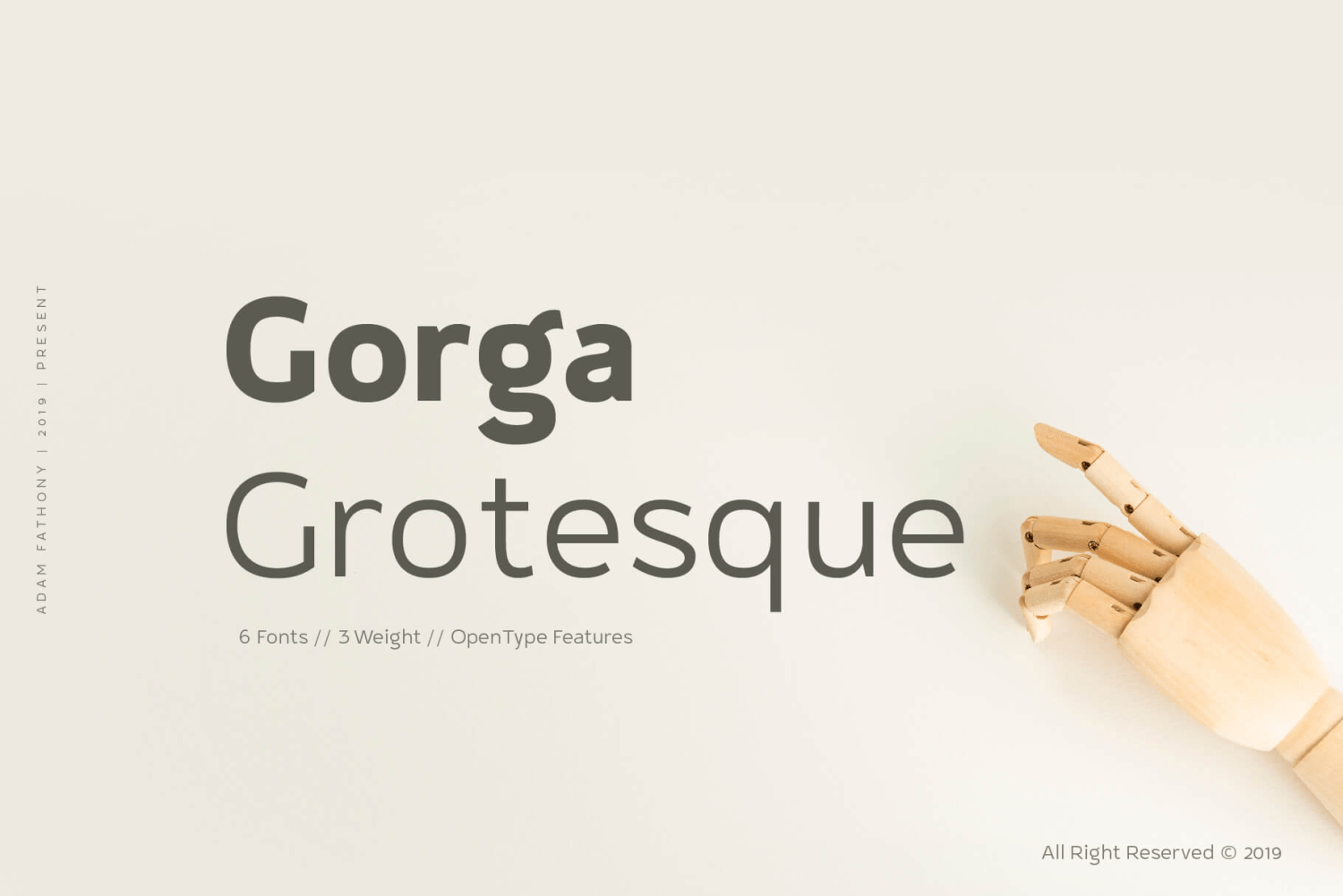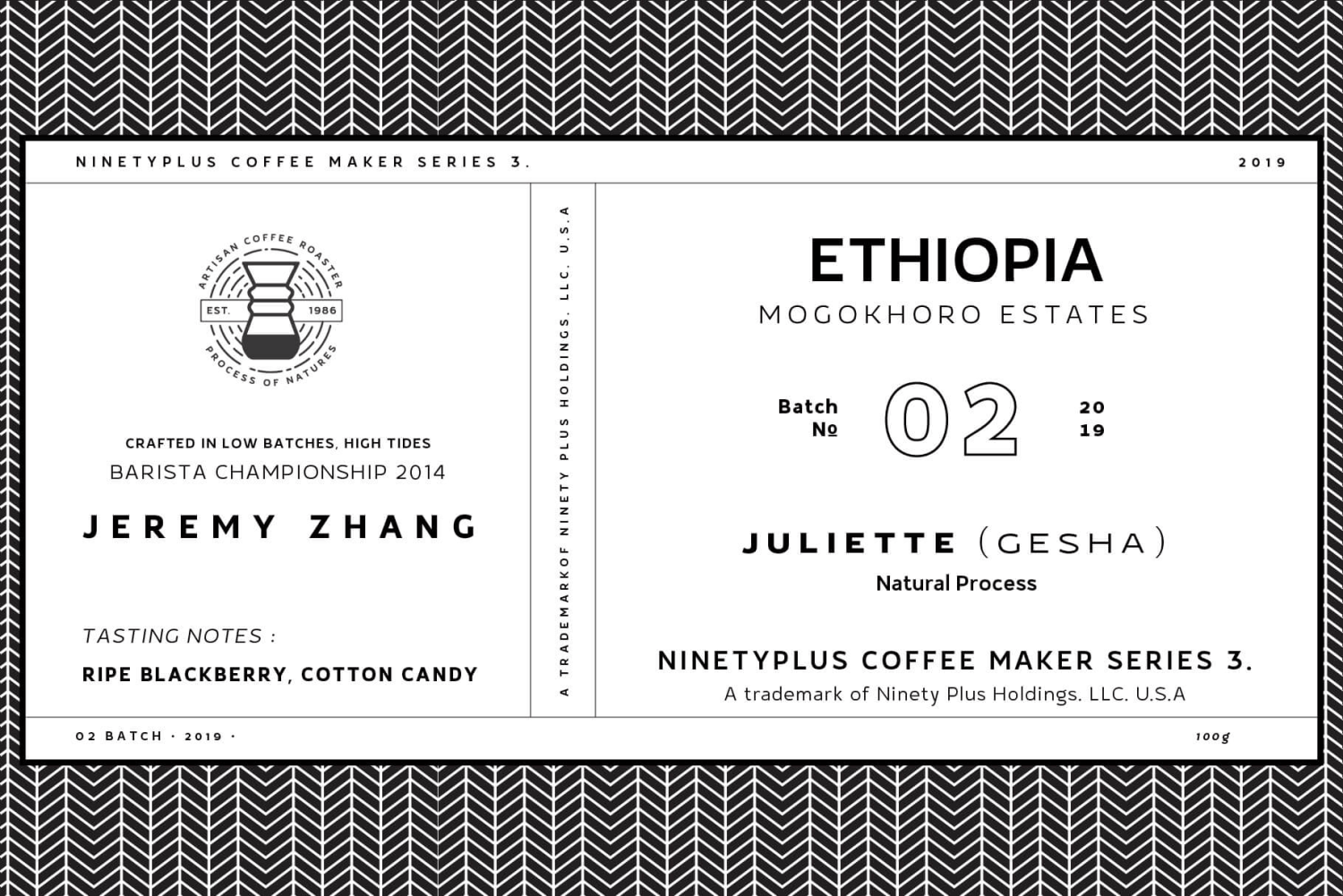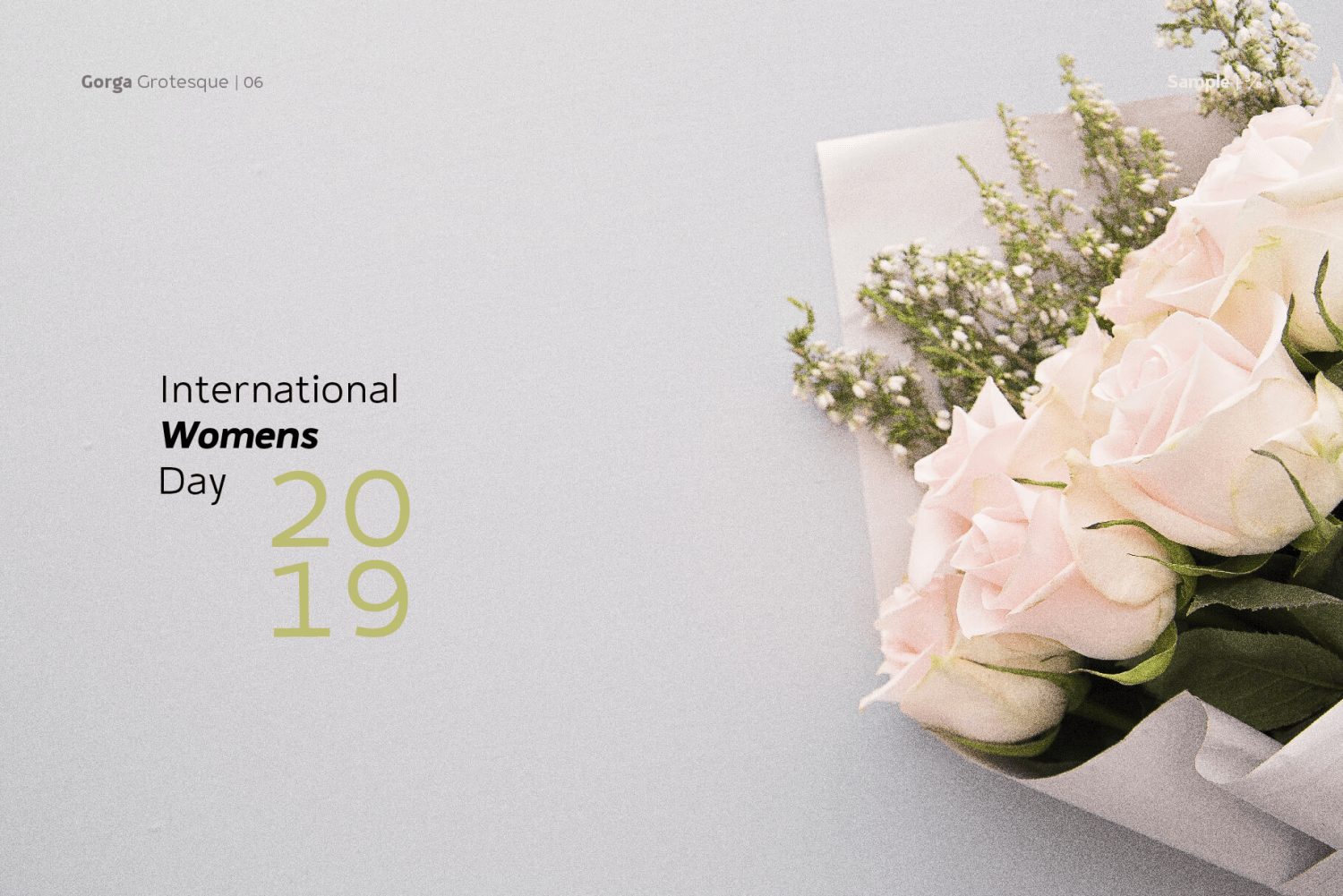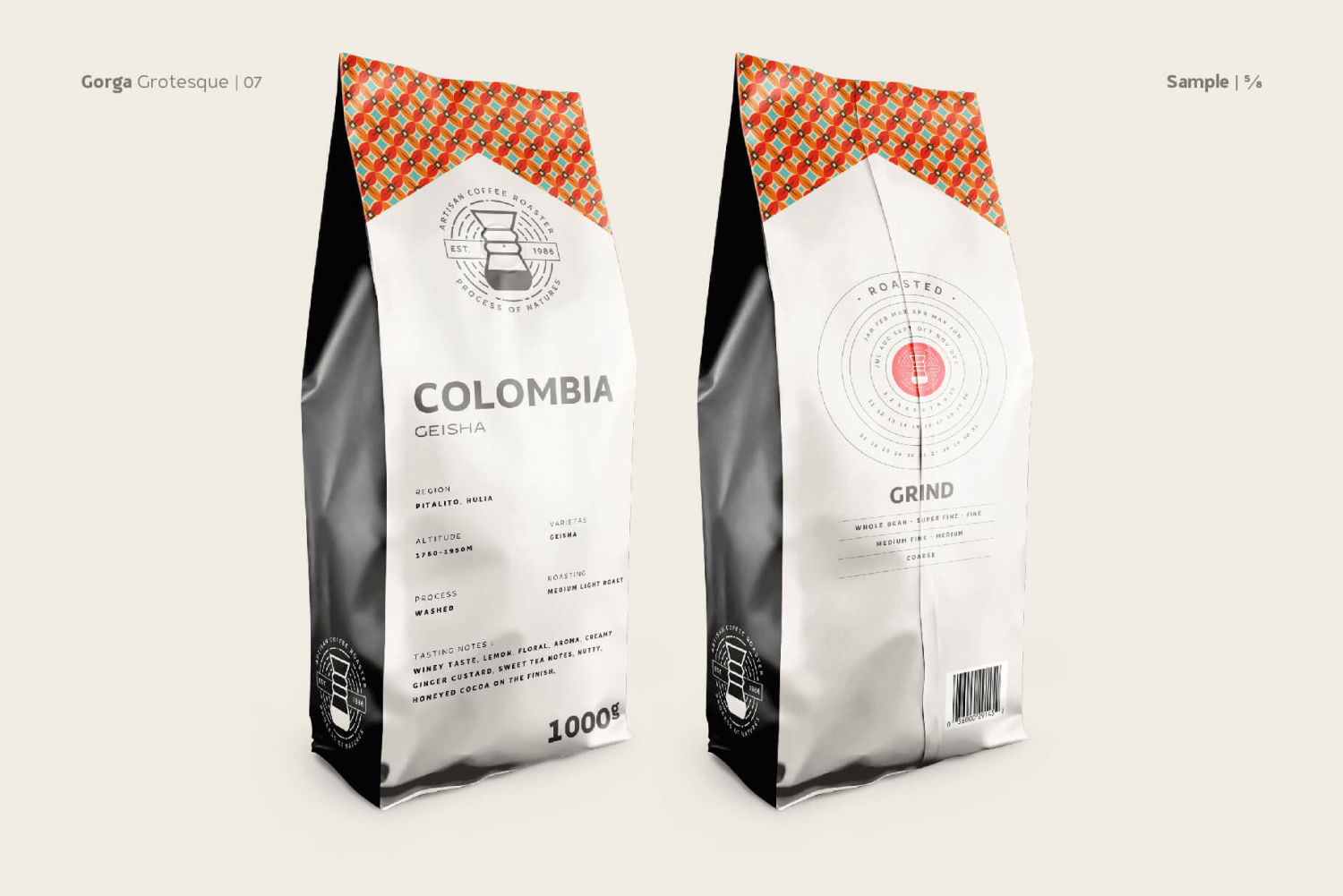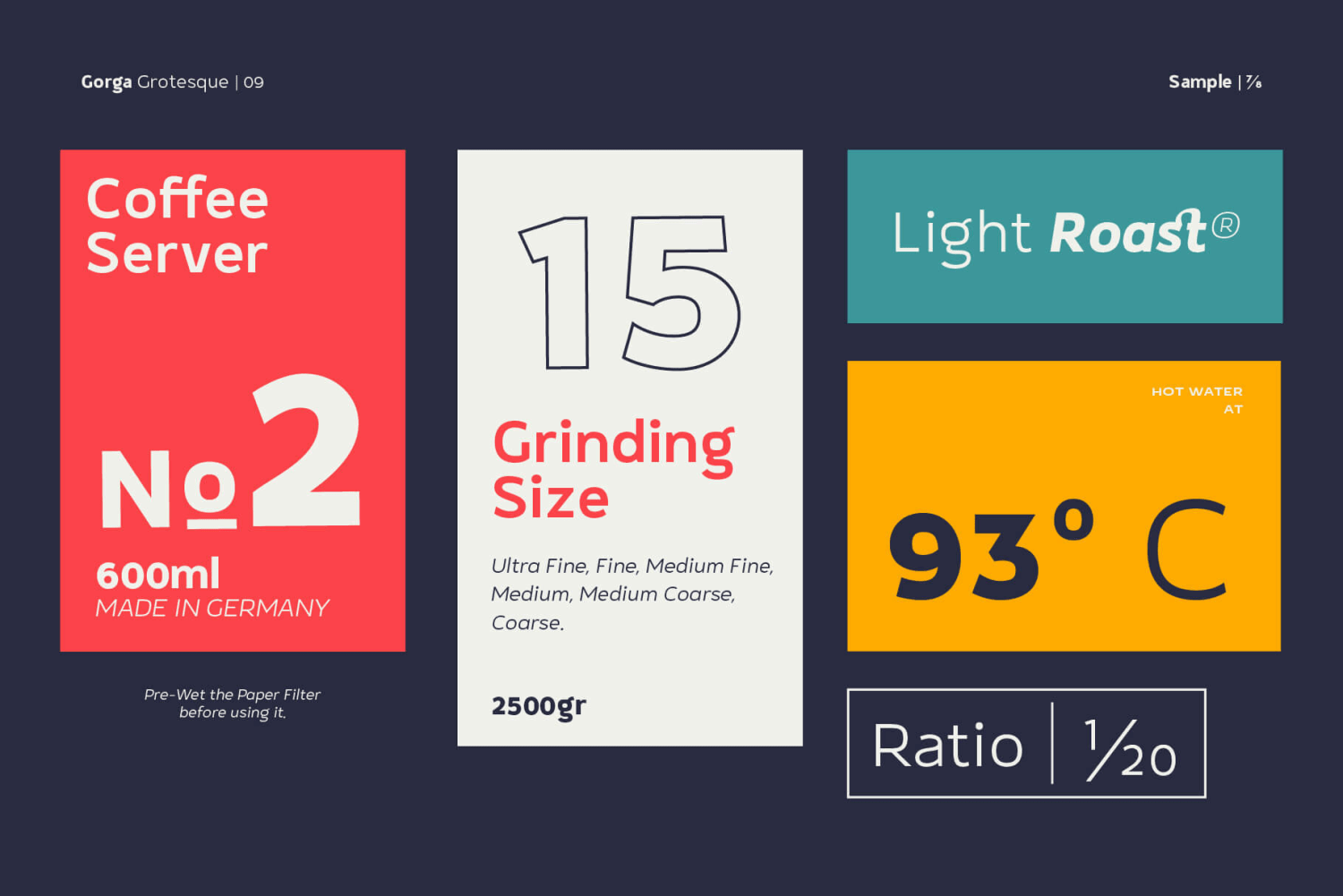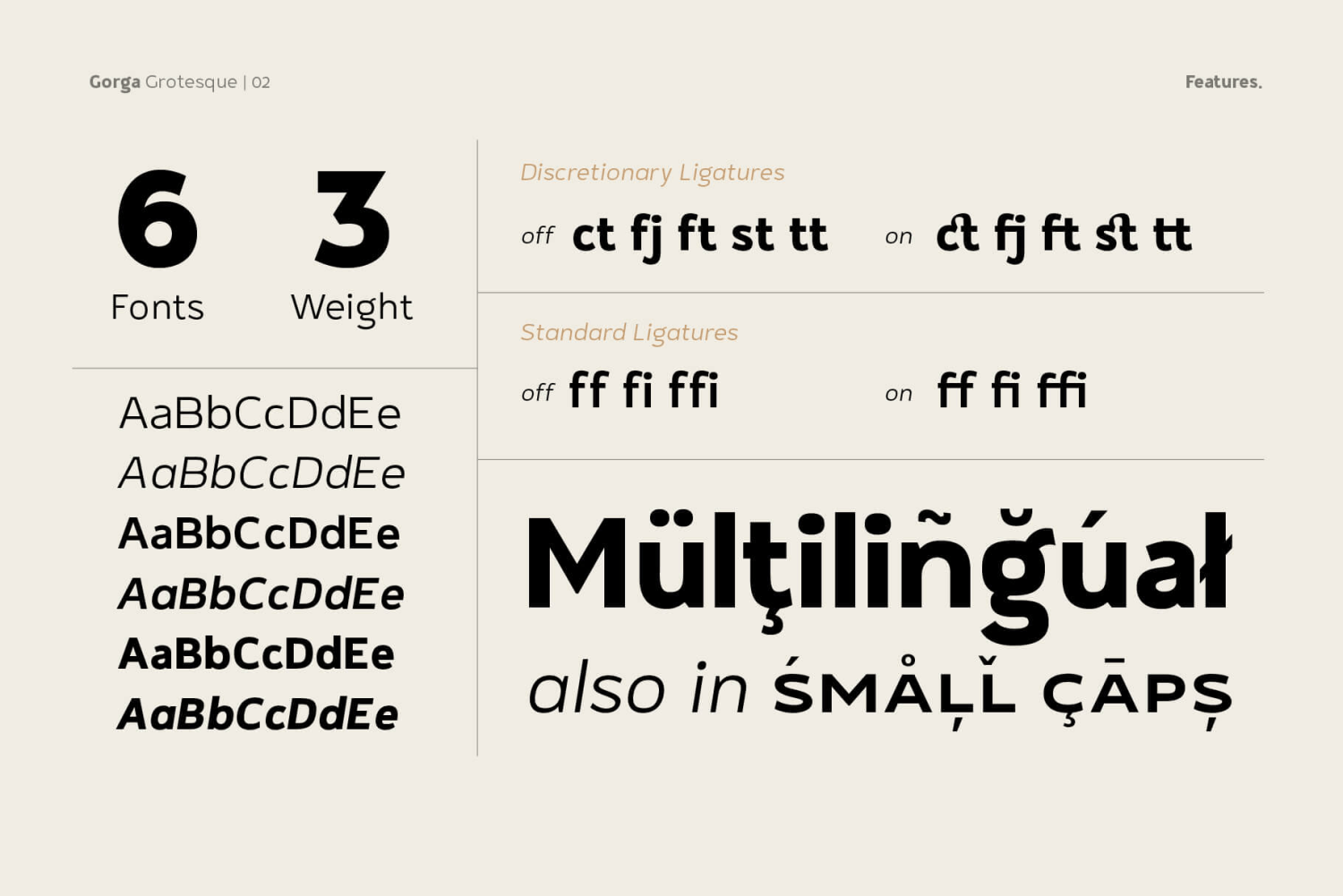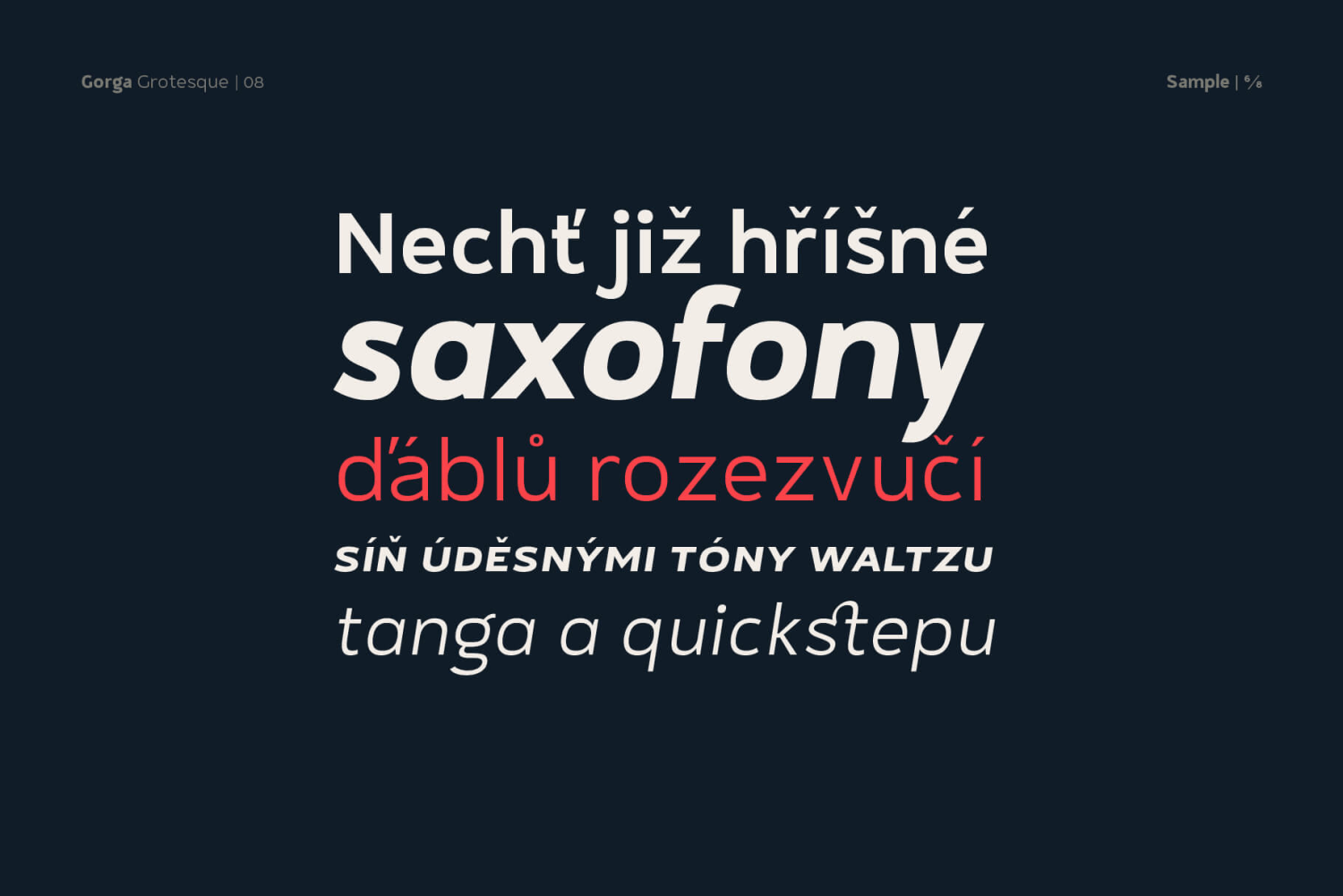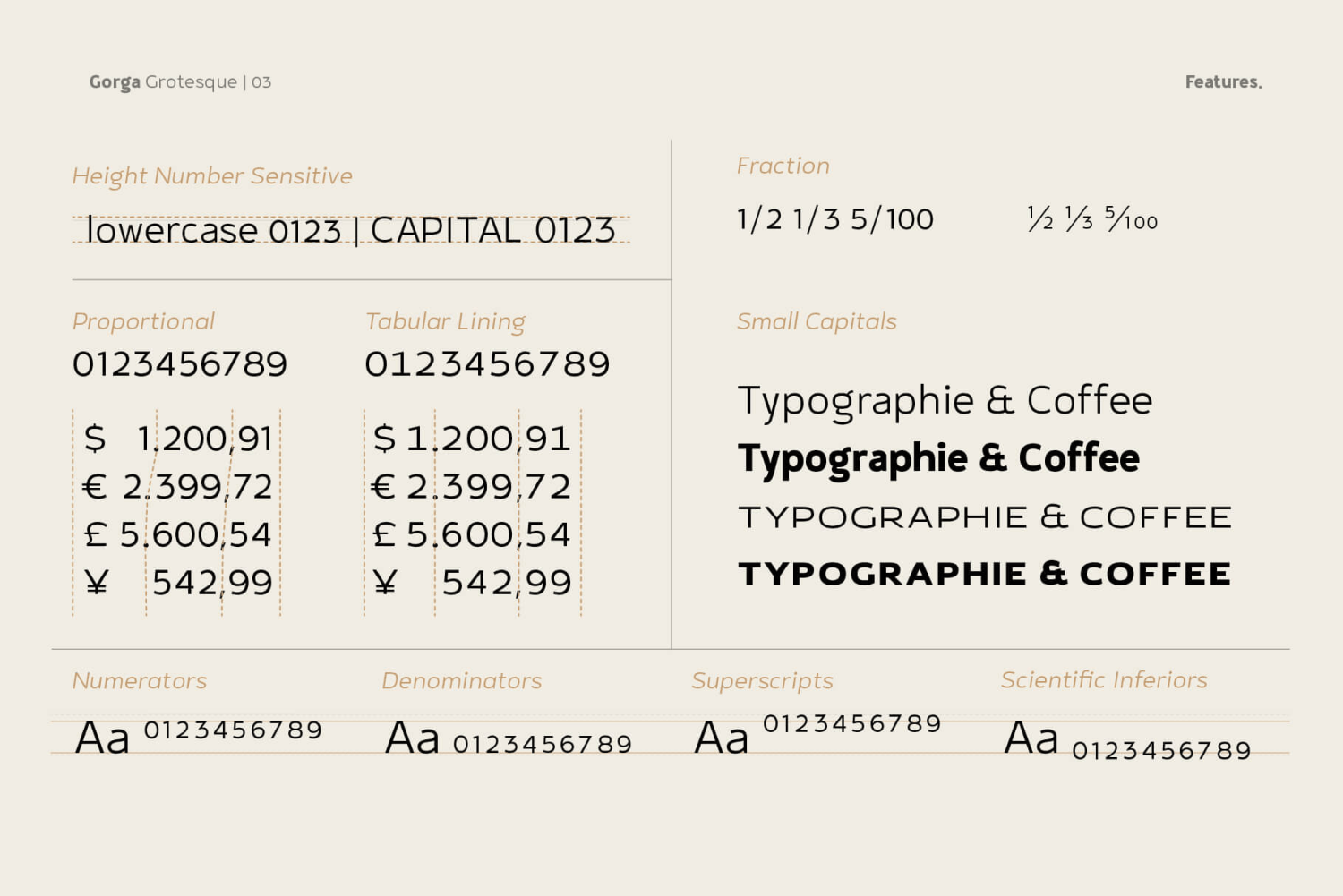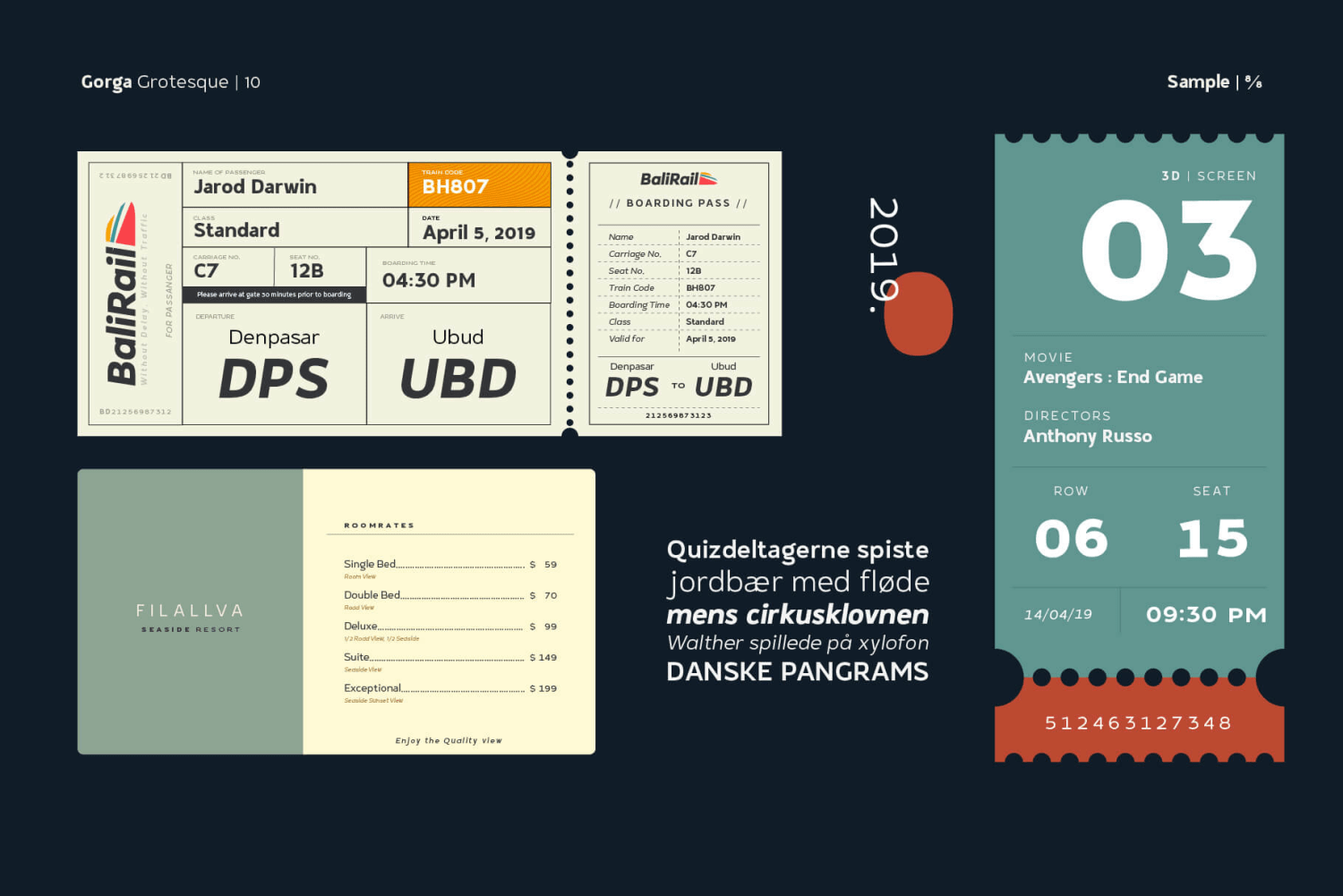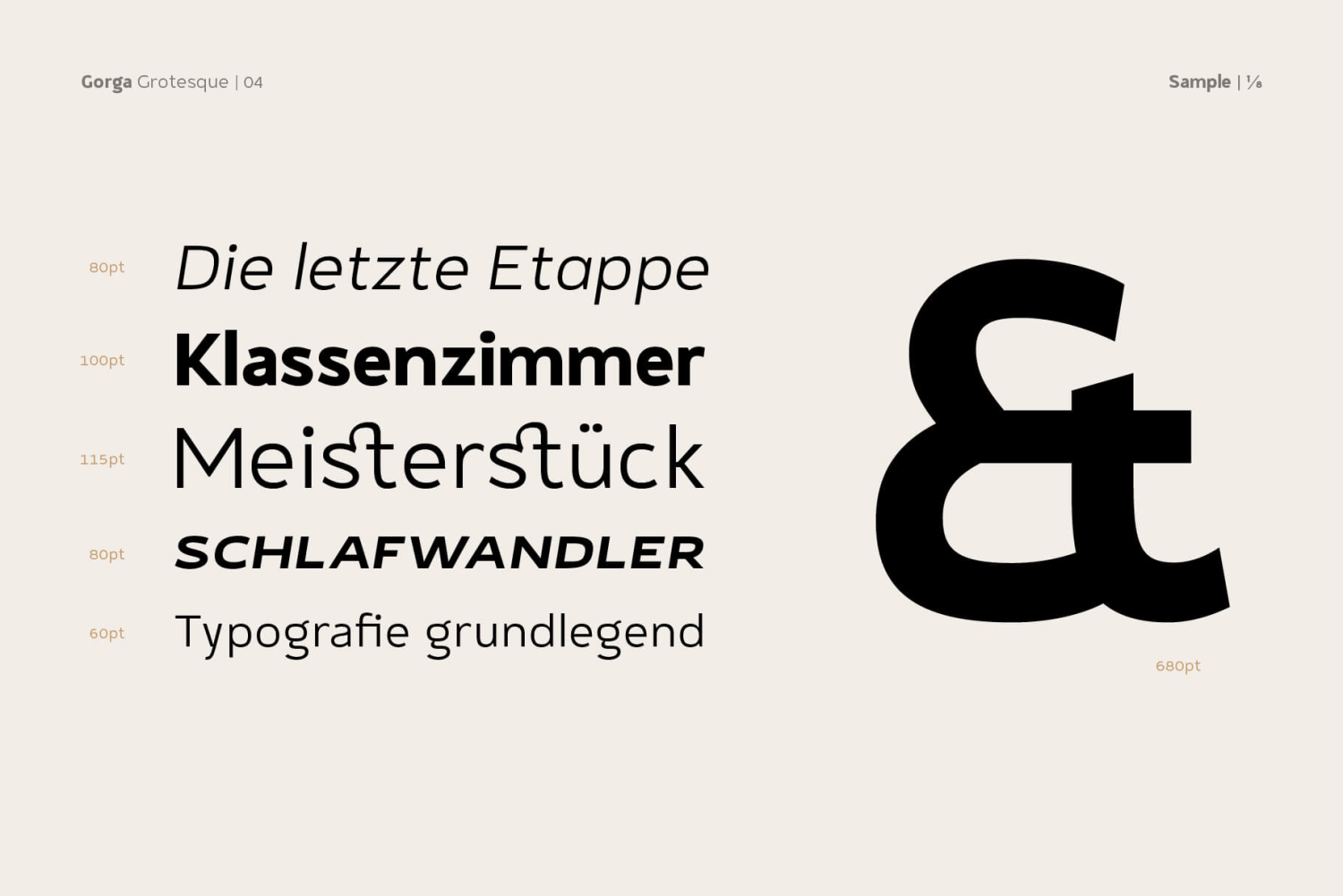
Gorga Grotesque
Gorga comes with Opentype features that help some of the important areas.
The Opentype features available on this fonts such as:
- Ligatures
- Discretionary Ligatures
- Contextual Alternates
- Fraction
- Height Number Sensitive
- Small Caps
- Numerators
- Denominators
- Superscripts
- Scientific Inferiors
All of the Fonts are support for Multilanguage, Carefully Crafted. Even on the small caps there are available diacritics set.